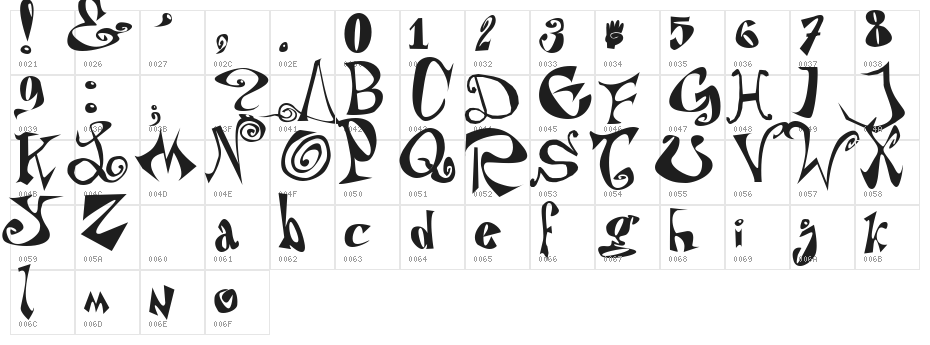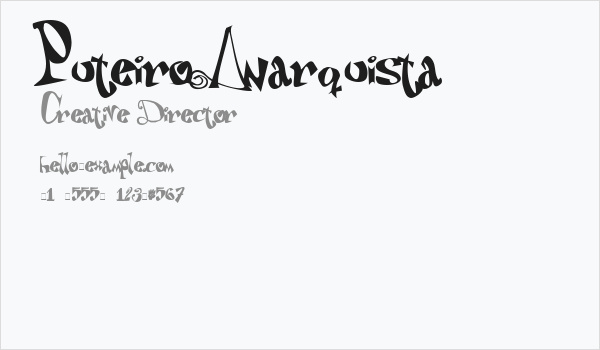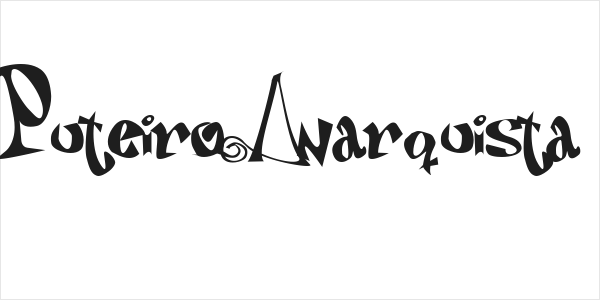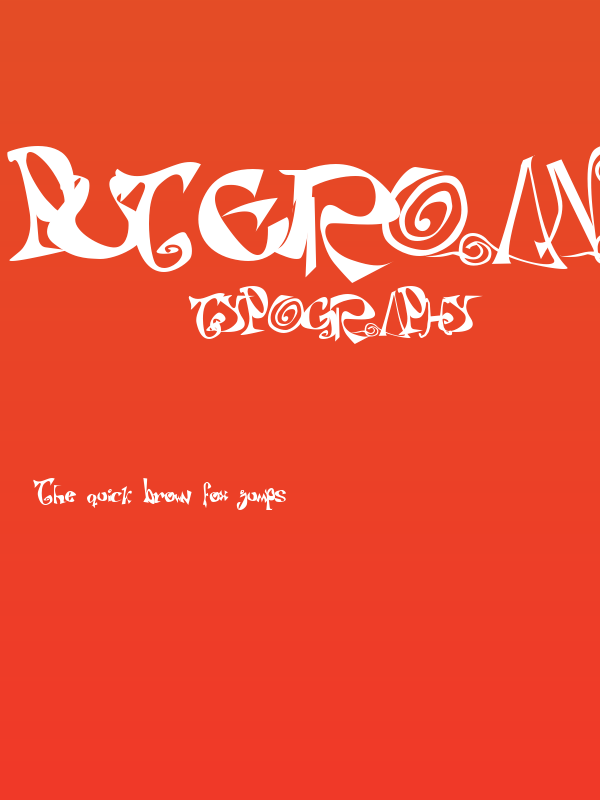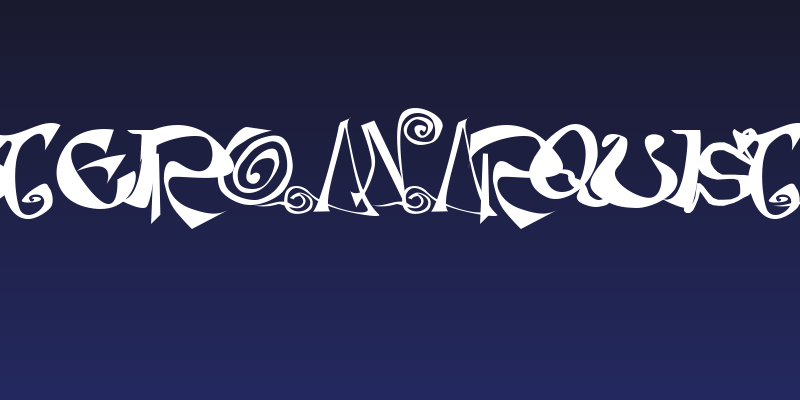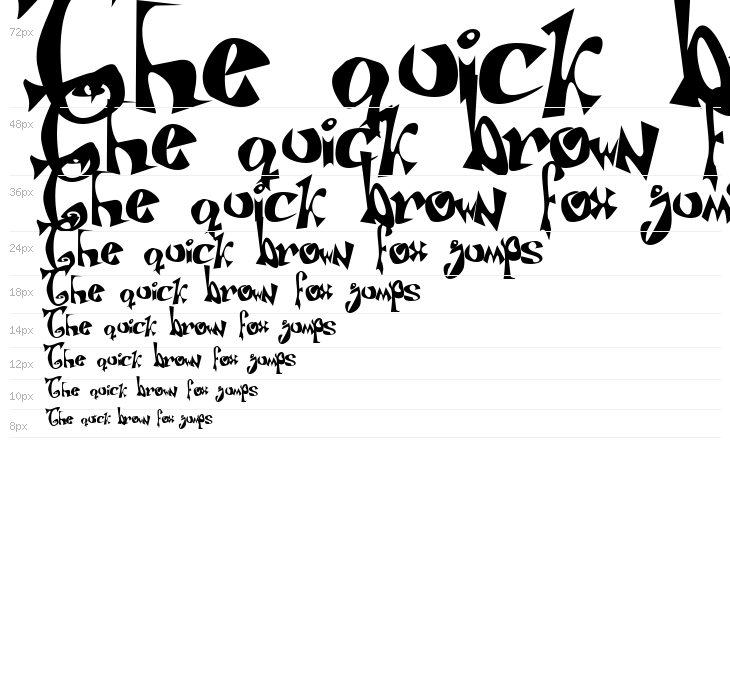
PuteiroAnarquista Font
PuteiroAnarquista Description
This font exhibits a highly decorative and artistic style, characterized by its bold and exaggerated curves and swirls. The uppercase letters are particularly elaborate, with intricate details that give each character a unique flair. The lowercase letters maintain a similar aesthetic, though slightly more subdued, allowing for a more cohesive text flow. Numbers and special characters follow the same ornate design, ensuring consistency throughout. The overall appearance is dynamic and expressive, making it ideal for projects that require a strong visual impact.
| Proposed Projects | Ideal for artistic posters, album covers, or branding that requires a bold statement. |